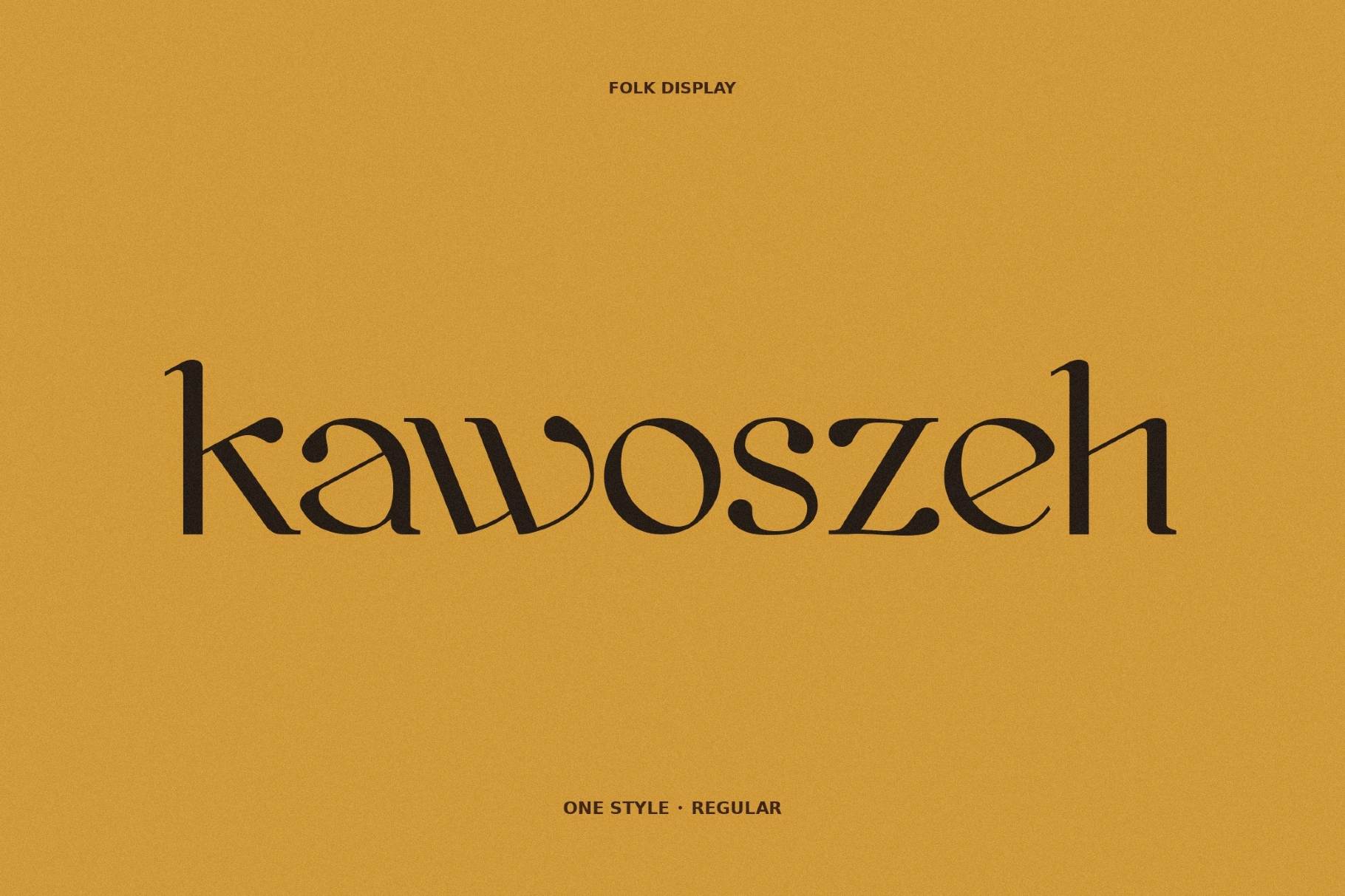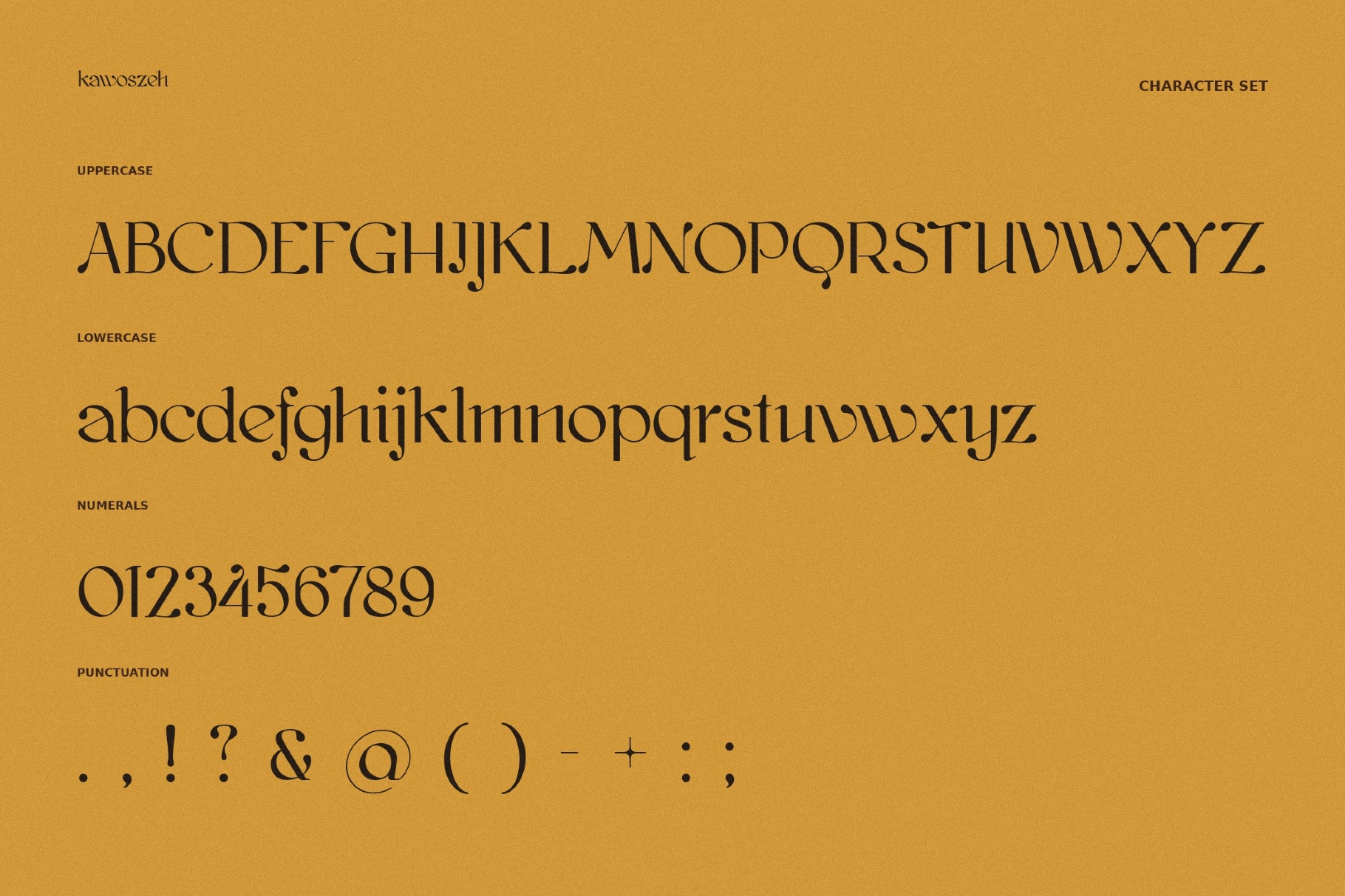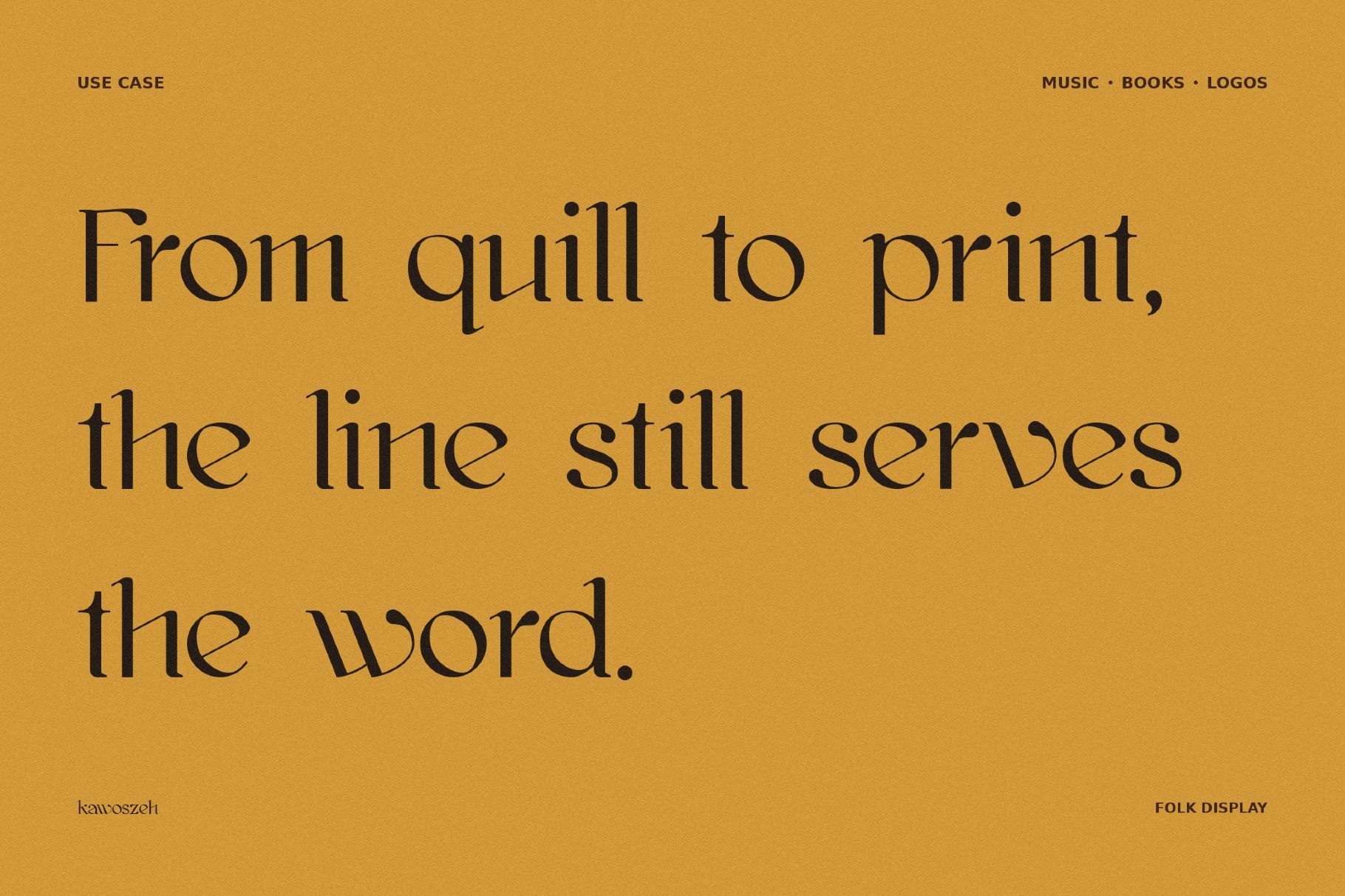
Kawoszeh - Vintage Deco Font
kawoszeh
Kawoszeh is cut from the rougher side of medieval visual culture, like tavern beams, battle-worn signs, or fantasy map inscriptions. Its uneven strokes, rugged contours, and carved-looking rhythm give each word a weathered presence, and work especially well for projects tied to folklore, Norse-inspired worlds, and Celtic references.
The font is built for fantasy book covers, tabletop RPG titles, brewery labels, folk festival posters, museum graphics, metal album art, and heritage branding.
- uppercase and lowercase letters;
- numbers, punctuation, and symbols;
- multilingual support across the extended Latin script;
- ligatures and stylistic alternatives.